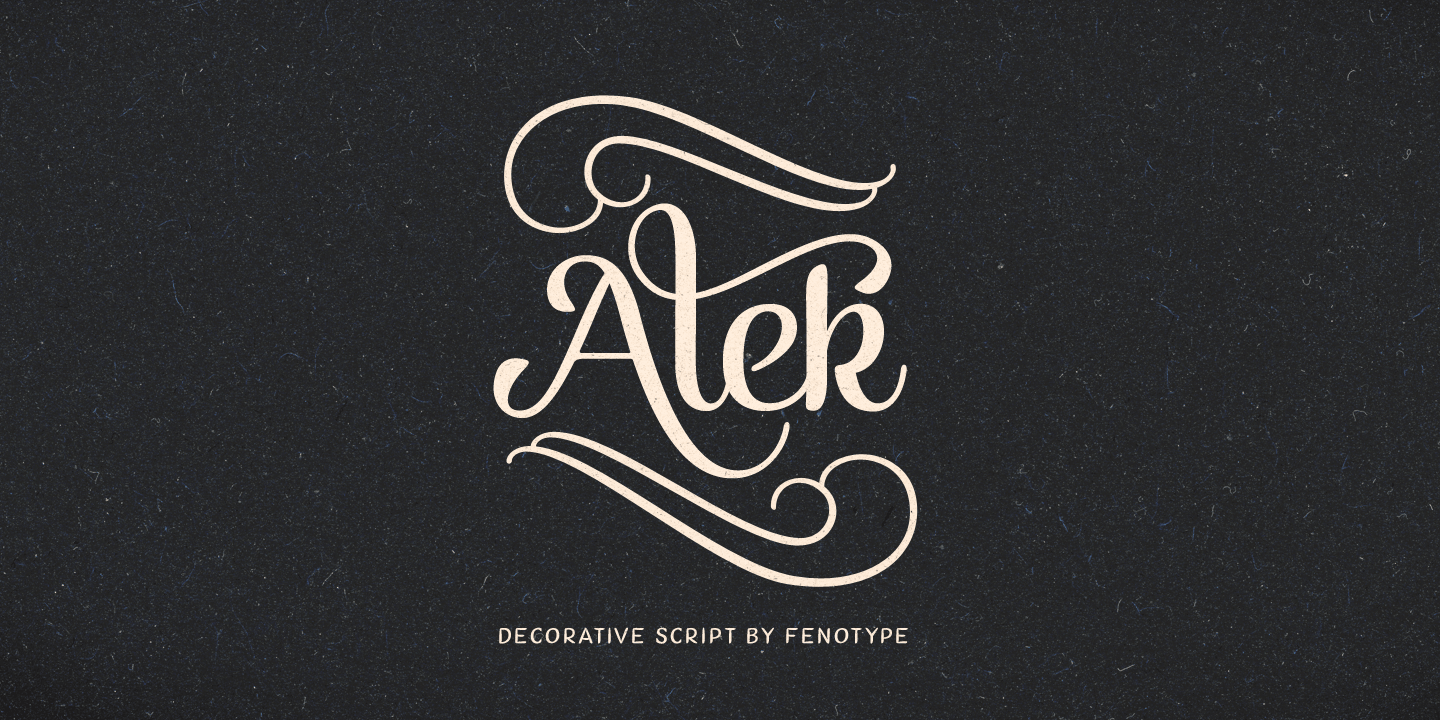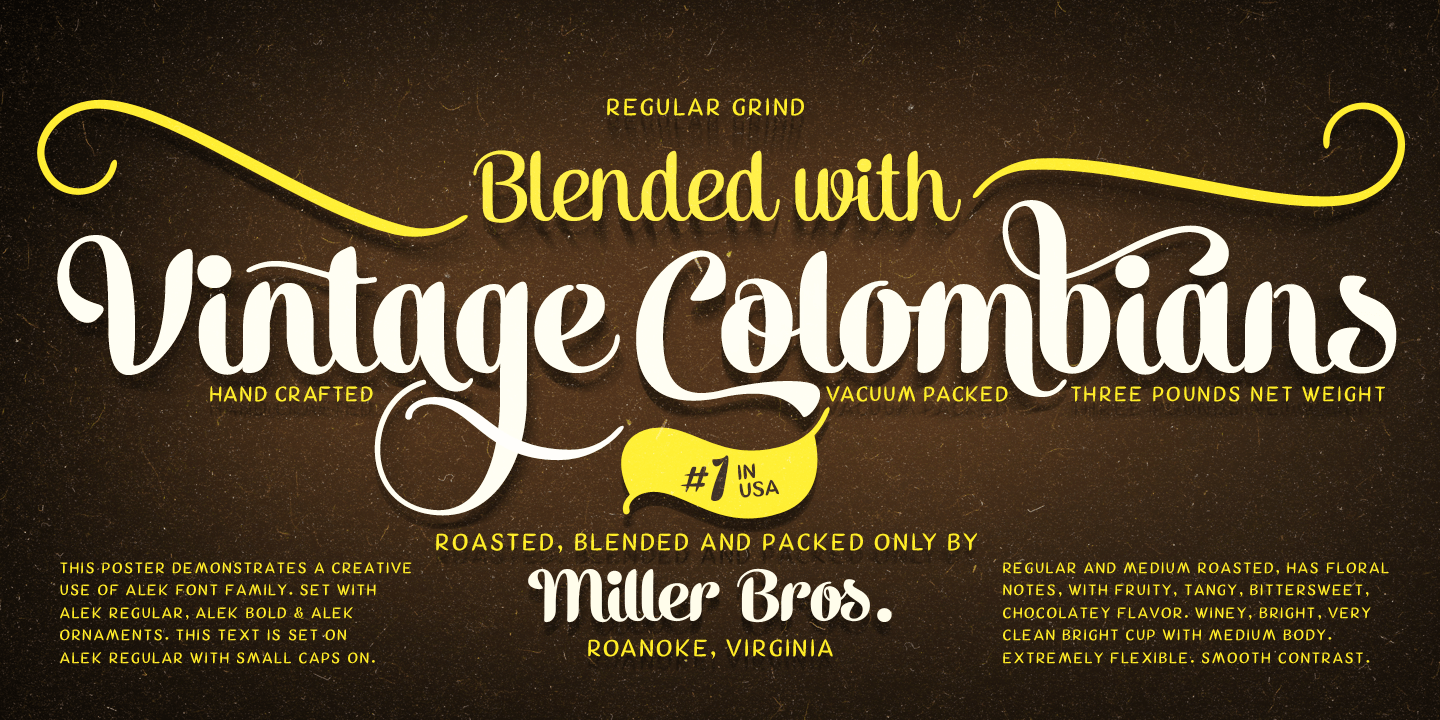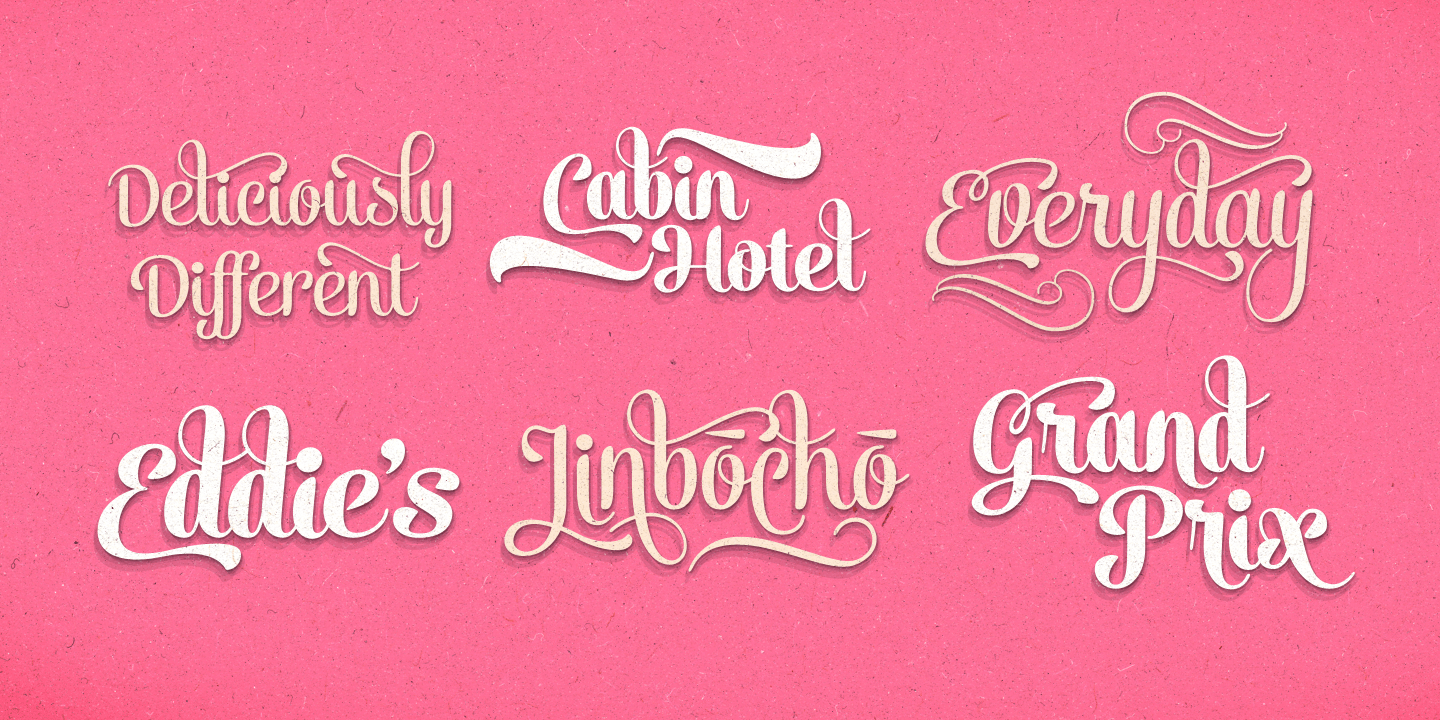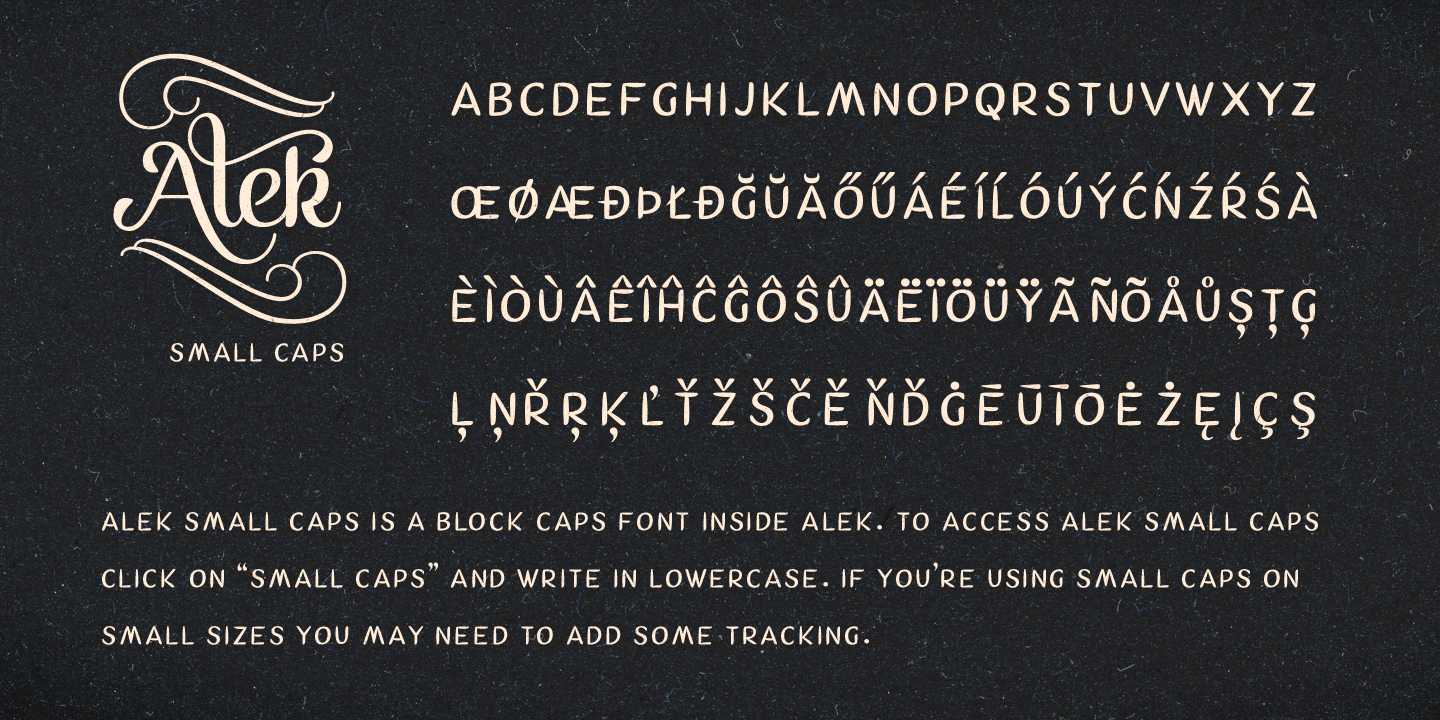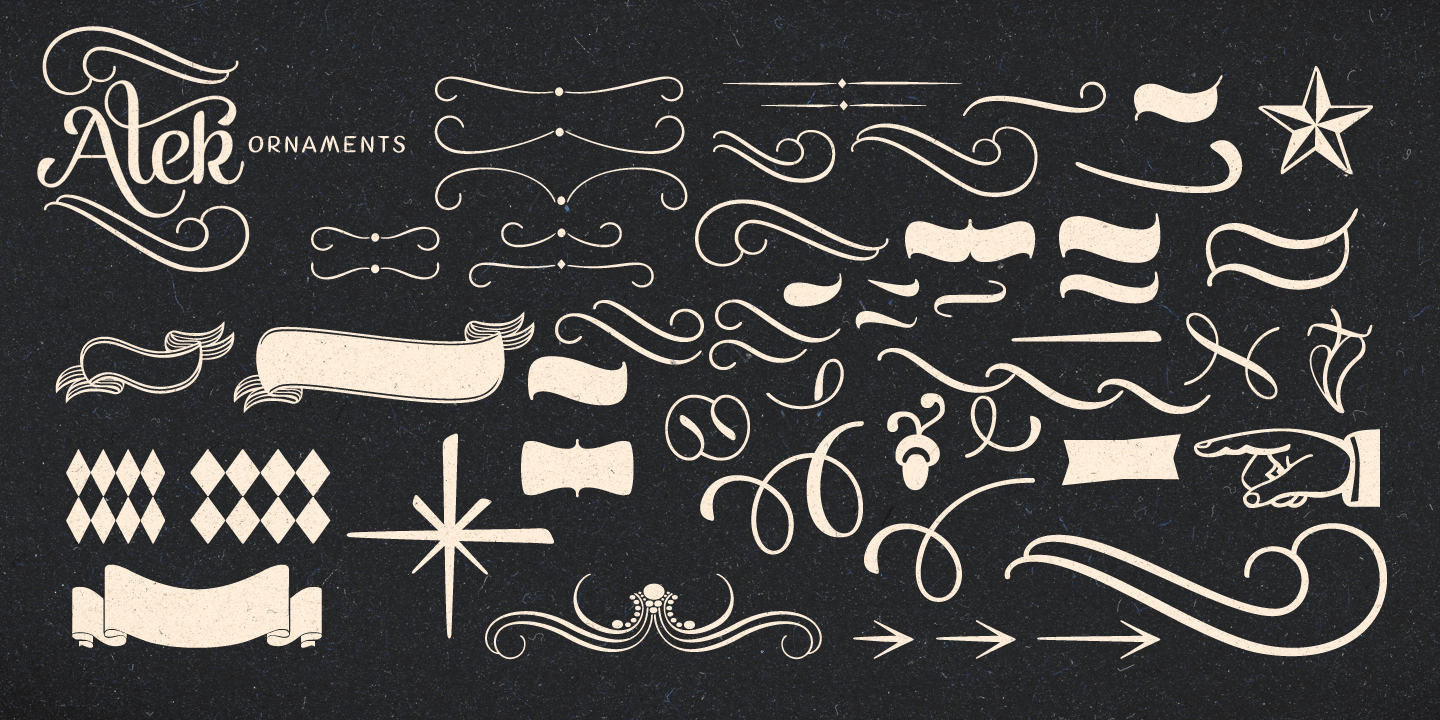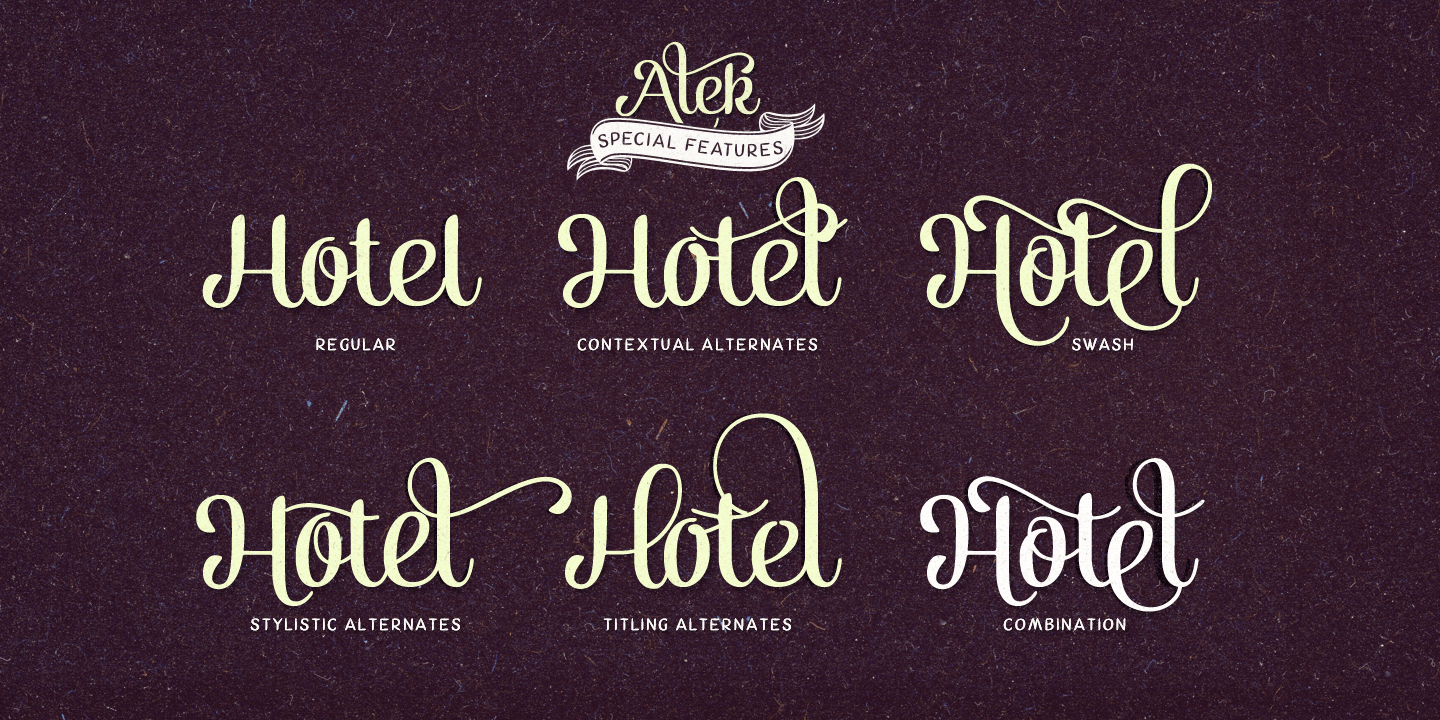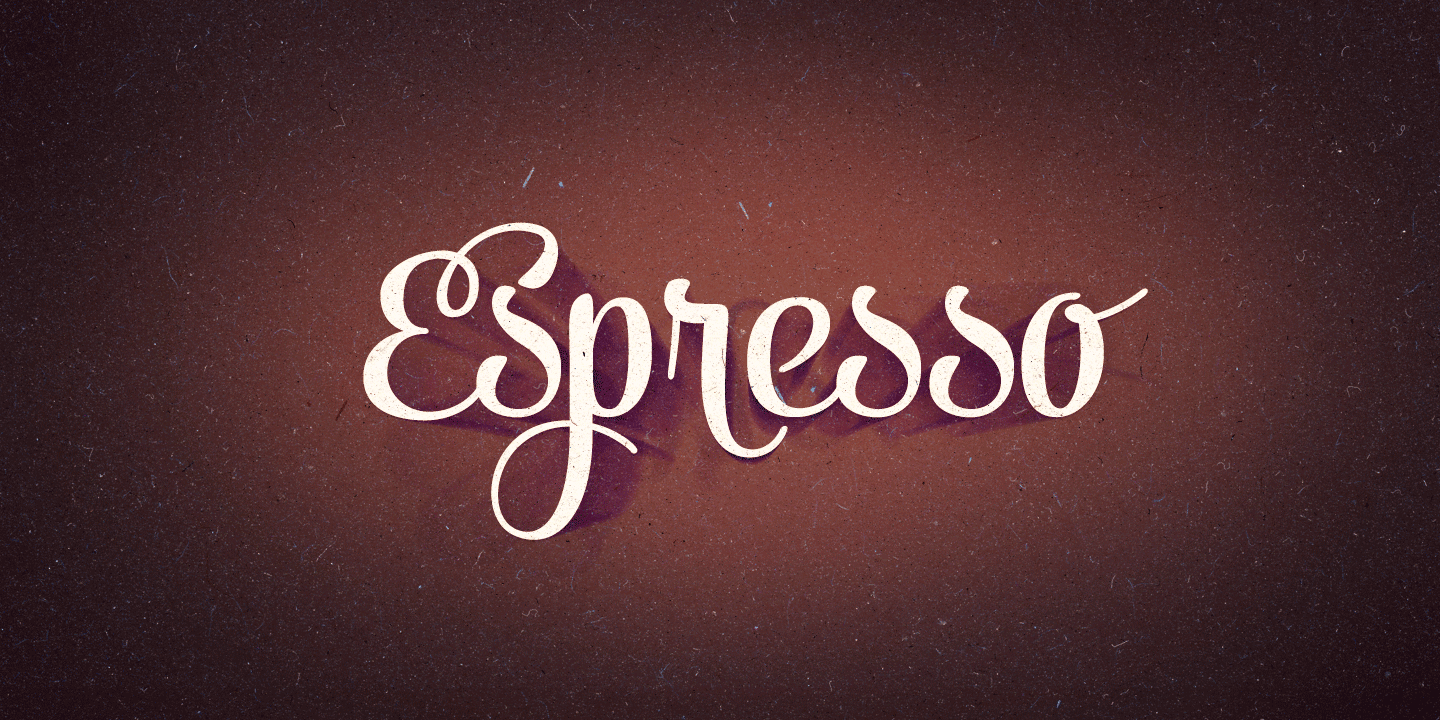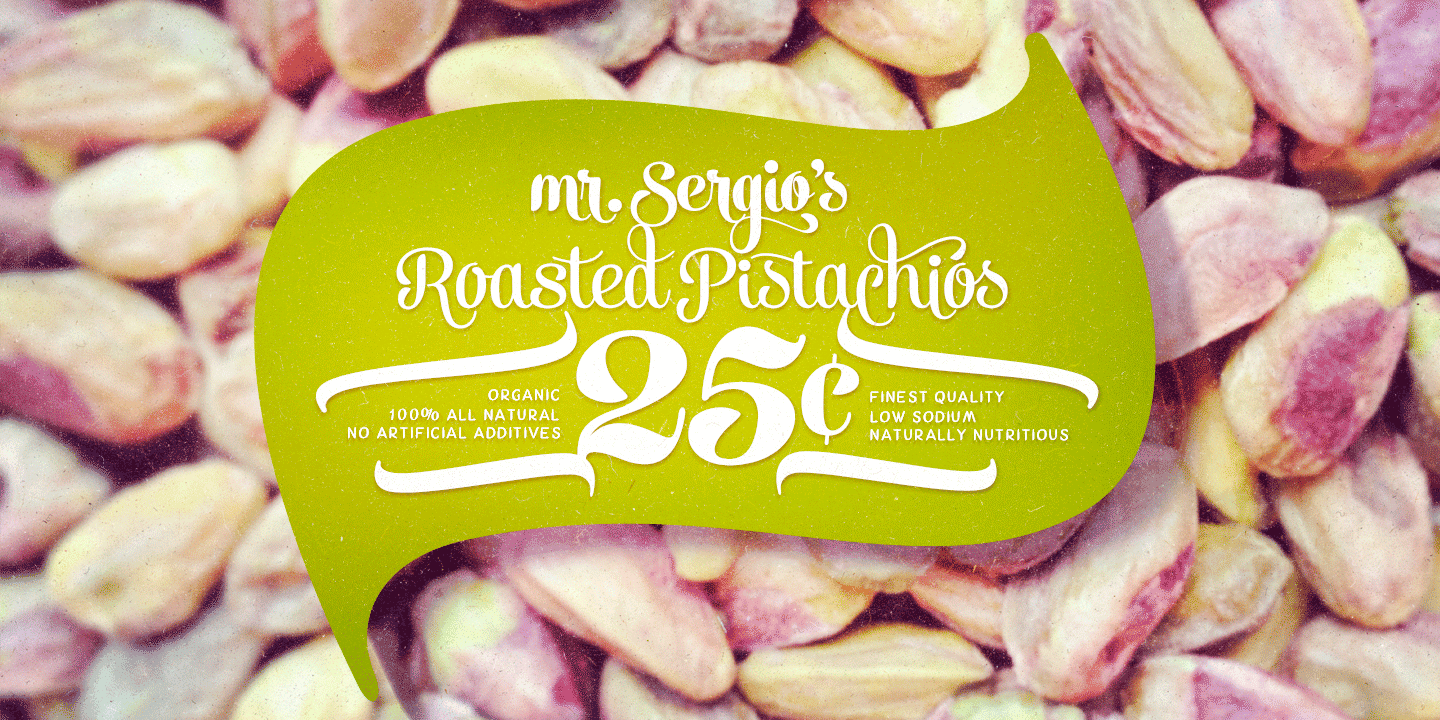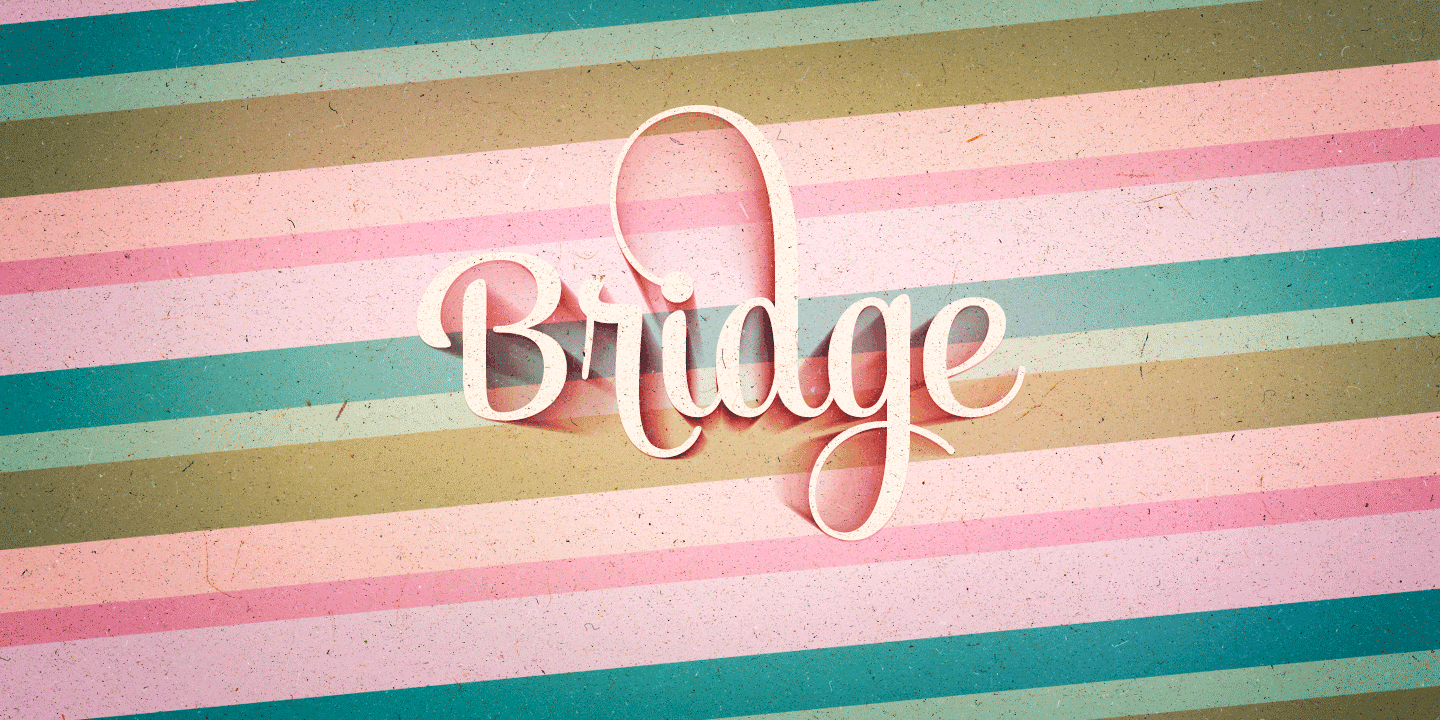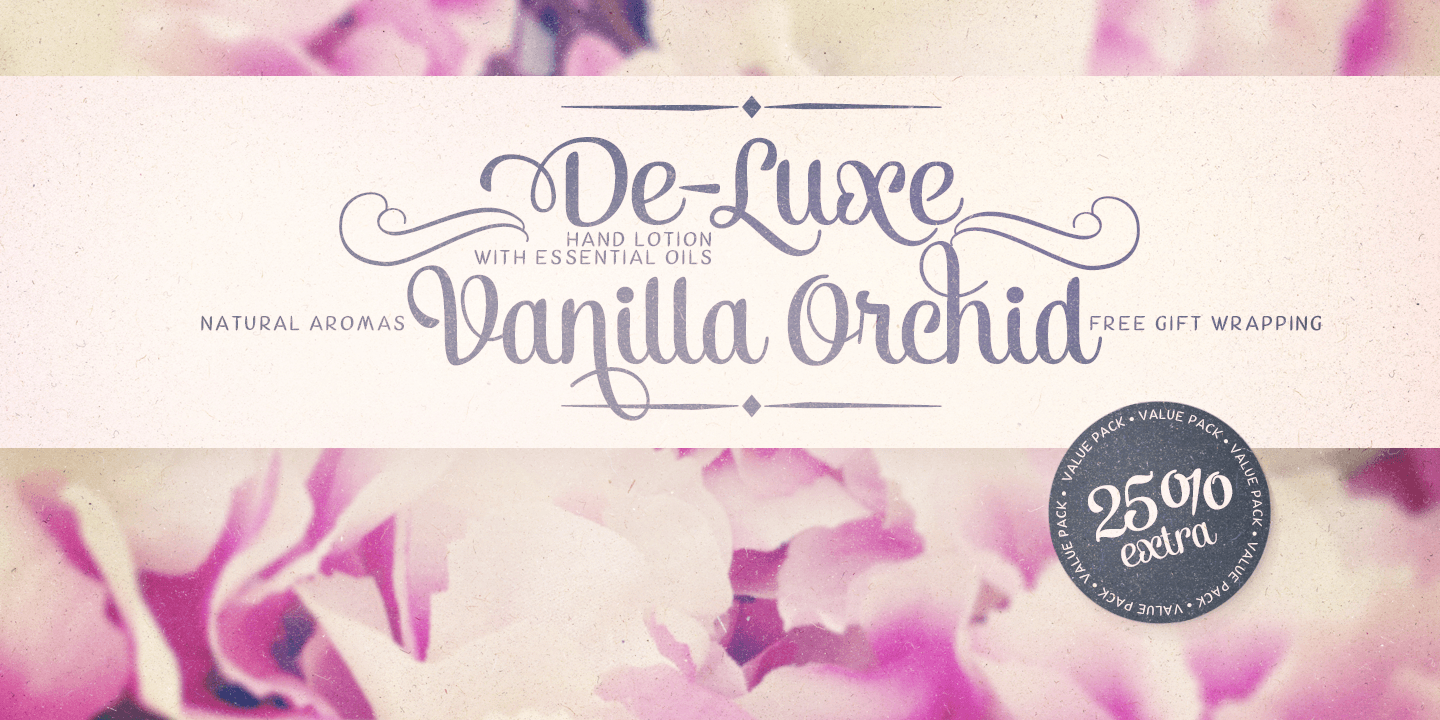
Alek
Font Family by Fenotype
Alek is a classy and elegant yet playful upright script family of two weights and an ornament set. Alek is equipped with plenty of OpenType features: To activate the alternates click on Swash, Contextual, Stylistic or Titling Alternates or Discretionary Ligatures, Tabular or OldStyle Lining in any OpenType savvy program or manually select the characters from Glyph Palette. Always keep on Standard Ligatures for the best outcome.
Combine Alek with Alek Ornaments to complete your designs. Turn on SmallCaps and write in lowercase to activate a set of block letters designed to support Alek. Alek is closely related to Emil Bertell's earlier release Mishka, having wider family and smoother letterforms.